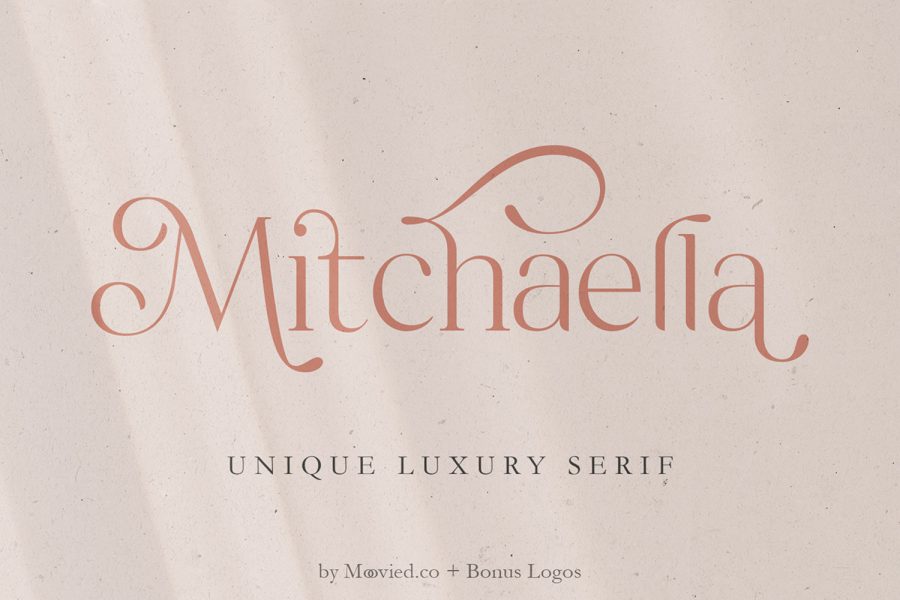
Mitchaella Luxury Serif Font
Mitchaella Luxury Serif Font is a modern, unique, and a luxurious serif typeface by Moovied Co. The font comes with many alternative characters, ornaments, multilingual support, ligatures and a bonus wedding illustration*. Hence, the font is a suitable for branding, branding logos, magazine imagery, wedding invitations, posters, fashion, packaging, website logos and more.